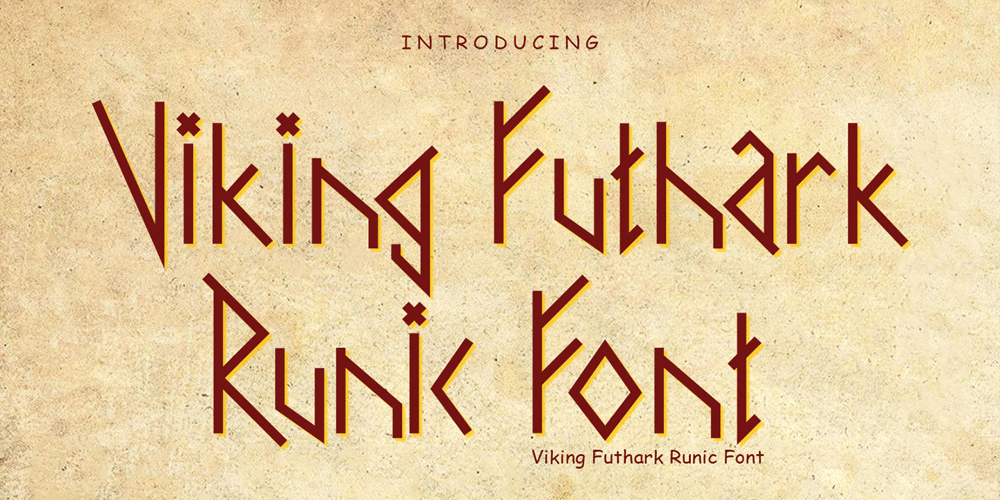
Viking Futh Ark Runic
Viking Futh Ark Runic font
Viking Futh Ark Runic Font Family was designed by Mohammed Lamjidi and published by Beast Designer. Viking Futh Ark Runic contains 1 styles and family package options. Viking Futhark Runic Font is a captivating typeface inspired by the ancient Norse runes used by the Vikings and other Germanic tribes. This font encapsulates the mysticism and power of the Elder Futhark, the oldest form of the runic alphabets, which dates back to the 2nd to 8th centuries. Each character is meticulously designed to reflect the angular and minimalist style of the original runes, making it perfect for projects that evoke the rugged, historical, and mystical essence of the Viking age. Ideal for use in fantasy-themed designs, historical projects, tattoos, and anything that requires a touch of ancient Nordic heritage.